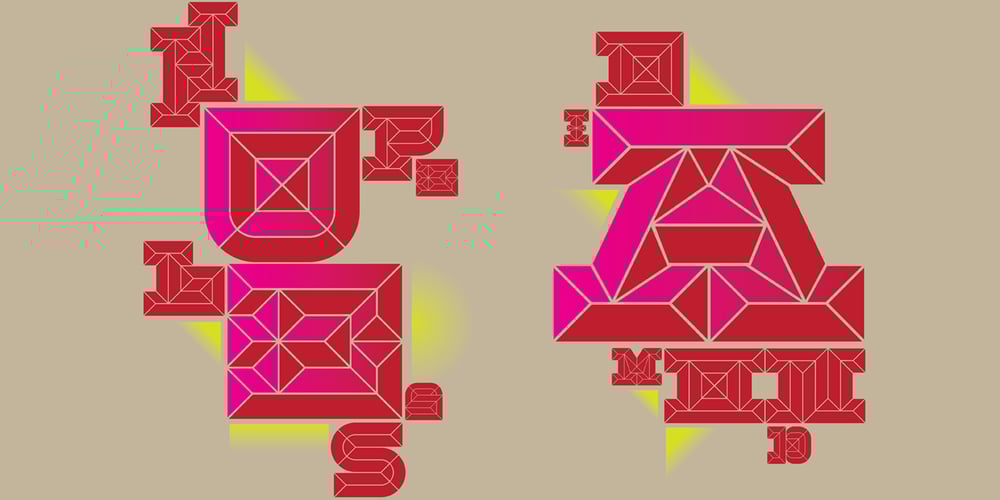
Hopeless Diamond
Hopeless Diamond font
Hopeless Diamond Font Family was designed by Marcus Leis Allion, Jonathan Barnbrook and published by Barnbrook Fonts. Hopeless Diamond contains 6 styles and family package options. Hopeless Diamond is a contemporary display typeface inspired by the sculptural muscle of 19th century carved lettering and the radical forms of the B-2 Spirit stealth bomber and the F-117 Nighthawk stealth strike aircraft. The typeface itself contains three different styles, each with an italic and an alternate character set that can be used to generate a number of interesting permutations. The name was taken from the derisive term that test pilots used for Have Blue, a late ’70s stealth demonstration aircraft –and early prototype for the F-117— designed and built by Lockheed’s Skunkworks division. Due to its unusual shape and departure from received aerodynamic wisdom, Have Blue was referred to as the ‘Hopeless Diamond’.